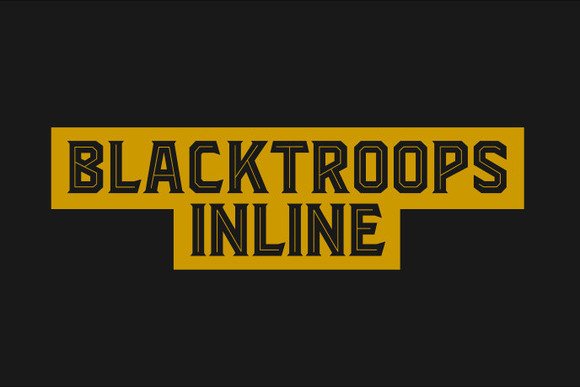
Design Inspiration Strikes: The Power of Blacktroops Inline Font
Have you ever been brainstorming a new design project and suddenly, a spark of creativity hits you? The perfect font, the ideal color scheme, and the overall aesthetic all come together in a flash of inspiration. For designers, moments like these are what make the job so exciting. And, sometimes, it all starts with the right font.
Enter Blacktroops Inline Font, the inline version of the Blacktroops family. This versatile font is designed to bring a touch of modernity and sophistication to any design. With a complete character set, Blacktroops Inline Font is perfect for designers looking to add a unique twist to their work. Whether you’re creating a logo, a brochure, or a website, this font is sure to elevate your design to the next level.
Blacktroops Inline Font Key Features
- Unique Characteristics: Blacktroops Inline Font features a bold, modern design with a unique inline style, making it ideal for use in headlines, titles, and other prominent text elements.
- Kerning and Ligatures: The font includes advanced kerning and ligature pairs, ensuring smooth and professional-looking text layouts.
- Multi-Lingual Support: Blacktroops Inline Font supports a wide range of languages, including Latin, Cyrillic, and Greek scripts, making it a versatile choice for global designs.
Designer Review: Blacktroops Inline Font
Overall, I think Blacktroops Inline Font is a solid addition to any designer’s toolkit. Here are some things that work well:
- ✨ Expressive Feel – The font’s inline structure gives it a dynamic, energetic feel that’s perfect for headlines or titles.
- ✨ High Customizability – The font’s multiple styles and weights make it easy to tailor to different designs and brand identities.
- ✨ Wide Character Set – Blacktroops Inline Font supports a wide range of languages and characters, making it a great choice for multilingual designs.
However, I do have some concerns:
- ⚠️ Limited Legibility at Small Sizes – While the font looks great at larger sizes, it can become difficult to read at smaller sizes, which may limit its use in certain contexts.
- ⚠️ Not Ideal for Body Text – Due to its inline structure, Blacktroops Inline Font may not be the best choice for body text or large blocks of text, where readability is paramount.
In conclusion, Blacktroops Inline Font is a great choice for designers who need a bold, eye-catching font for headlines or titles. However, it may not be the best choice for every project, and designers should be aware of its limitations before using it.
Blacktroops Inline Font is ideal for:
- Typography-heavy designs, such as posters and brochures.
- Branding and logo design, where a unique font can make a statement.
- Editorial and publishing projects, where a clean and modern font is desired.
Alternatives to Blacktroops Inline Font
Great Vibes is a modern, elegant font that is perfect for designers who want a sophisticated and stylish look. It has a similar inline feel to Blacktroops Inline Font but with a more refined and polished appearance. Great Vibes is ideal for use in branding, logos, and advertising materials where a high-end look is desired.
Lato is a clean, sans-serif font that is highly versatile and suitable for a wide range of applications. While it lacks the inline feel of Blacktroops Inline Font, it has a more modern and sleek appearance that can be used for body text, headings, and even logos. Lato is a great alternative for designers who want a clean and minimalist look.